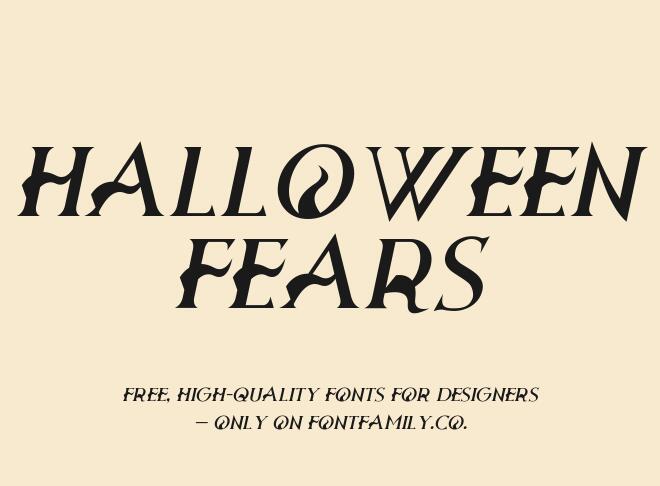
Halloween Fears Font
The Halloween Fears Font by Spooky Foundry is a decorative, playful, and bold typeface that perfectly encapsulates the spirit of Halloween. With its intricate detailing and unique character design, this font is a standout choice for enhancing any Halloween-themed project. Its quirky and exaggerated characters add a touch of fun and excitement, making it ideal for party invitations, posters, and graphic designs. Similar to other fonts in the Halloween genre, Halloween Fears Font has a distinctive style but adds a level of sophistication and boldness that sets it apart. This font is a must-have for designers aiming to create eye-catching and memorable designs that truly capture the essence of Halloween. While it's free for personal use, its value in commercial Halloween-themed projects is immeasurable.